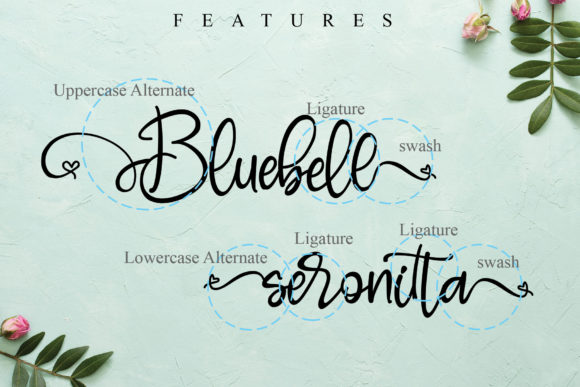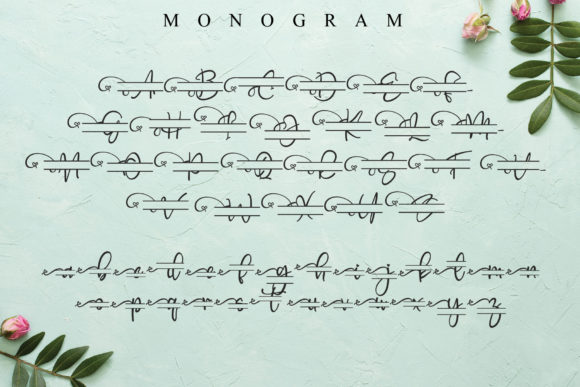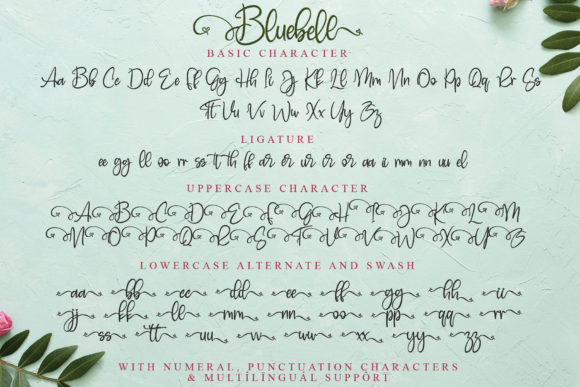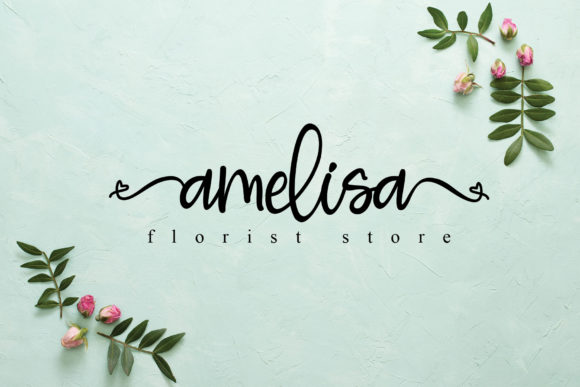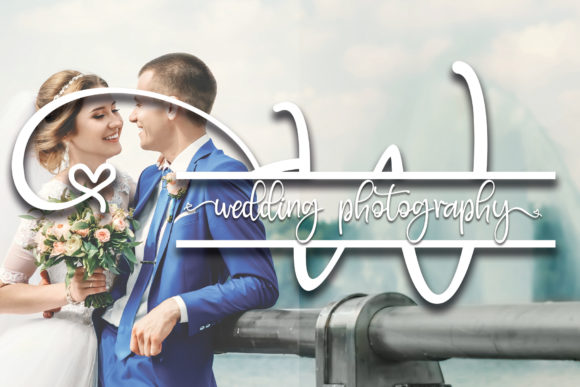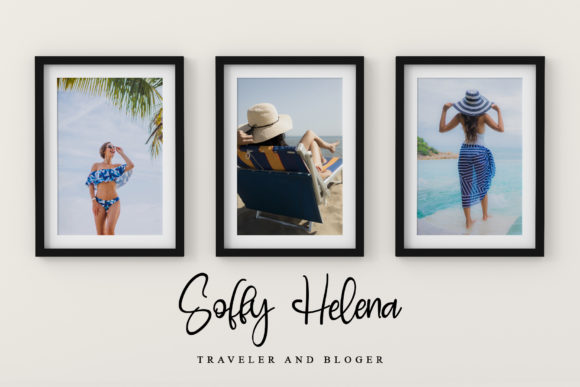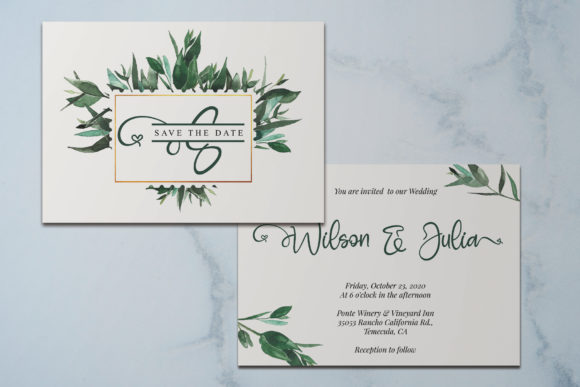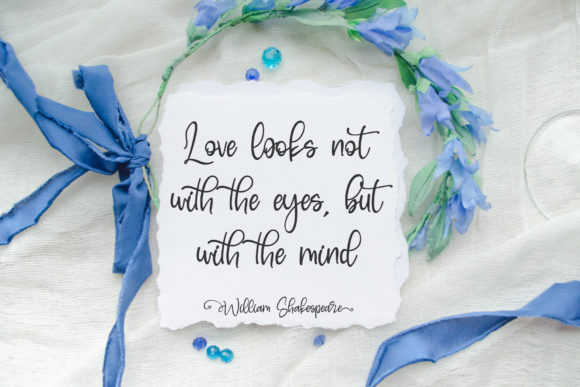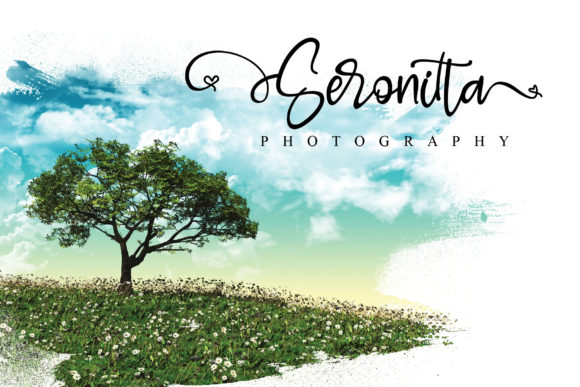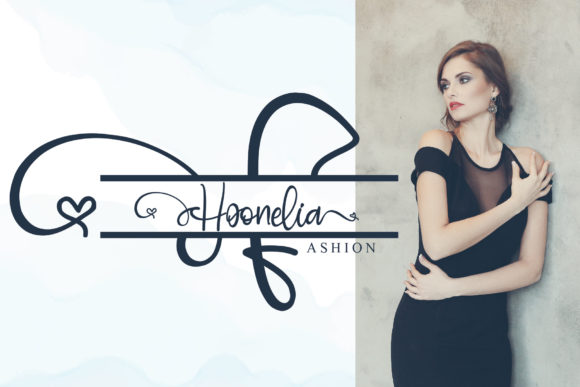
Bluebell Font
About Bluebell Font
Bluebell is a sweet, soft hand-lettered handwritten font. Fall in love with its authentic feel and use it to create gorgeous wedding invitations, beautiful stationary art, eye-catching social media posts and much more! This font is PUA encoded which means you can access all of the cute glyphs and swashes with ease! It also features a wealth of special features including alternate glyphs and ligatures.